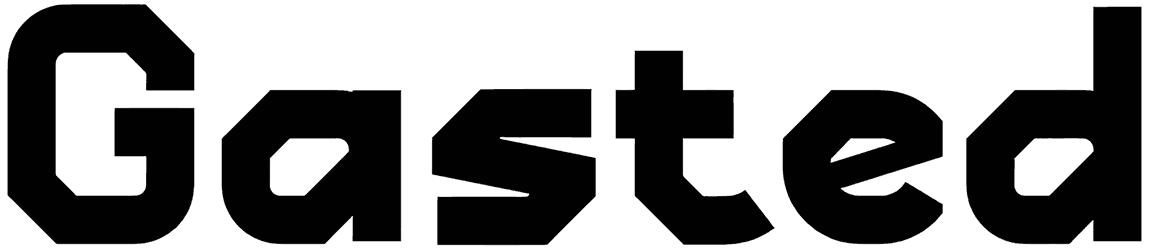
Gasted Font
Beyond your imagination, you can expect Gasted to bring your artwork, such as street posters, digital banners, flyers, menus, and product packaging to a higher level by adding a sense of majesty, youth, futuristic, dynamic, and courage.
Despite the fact that it lacks numbers and punctuation, this techno font comes with two distinctive styles, thus it would be your reliable assistant in producing high-end graphic content.